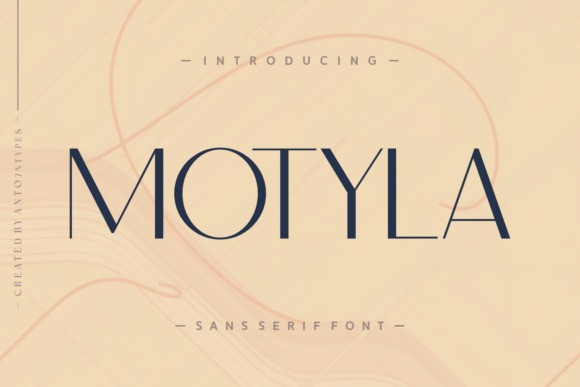
Motyla Sans Font
Motyla Sans Font a versatile fusion of elegance and modernity captured in a Sans Serif font. With its subtle charm and clean design, it makes a perfect match for photography accents, adding an authentic touch. Whether it’s a magazine, branding, or a book, Motyla never fails to engage readers. Its smooth finish, visual appeal, and trendy style make it the right pick for greeting cards and apparel designs. The font is an ideal choice for covers and packaging that leave a lasting impression. With it, quotes come to life and logotypes stand tall with grace. From t-shirts to lovely cards, there’s no limit to where you can use Motyla. With multilingual support, its reach extends globally, breaking language barriers. Experience the sophistication and versatility of Motyla, a true testament to the beauty of typeface design.